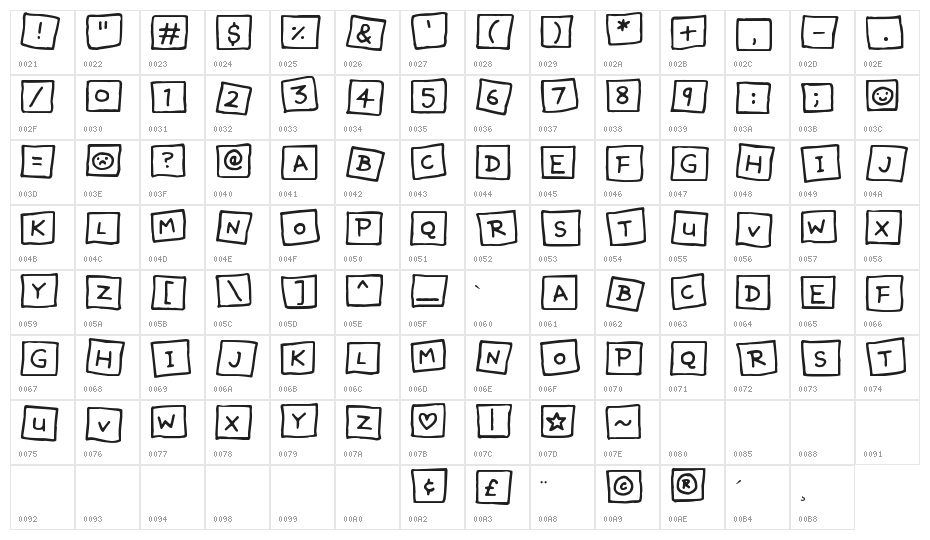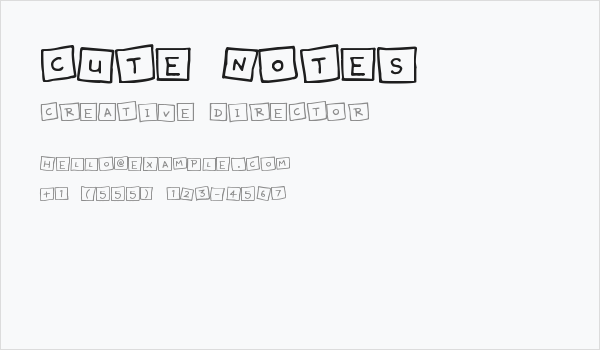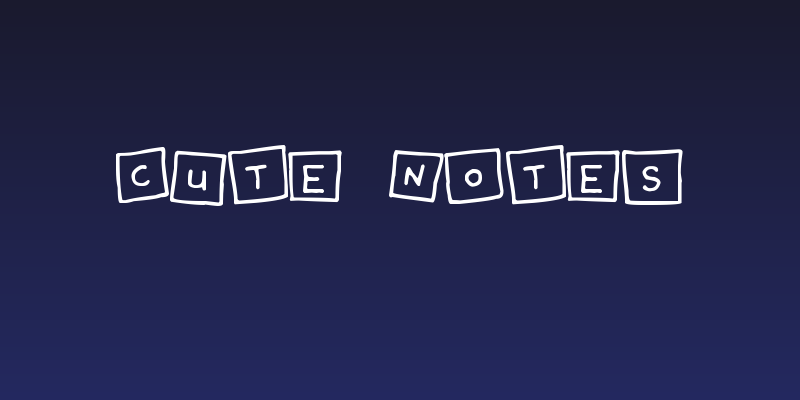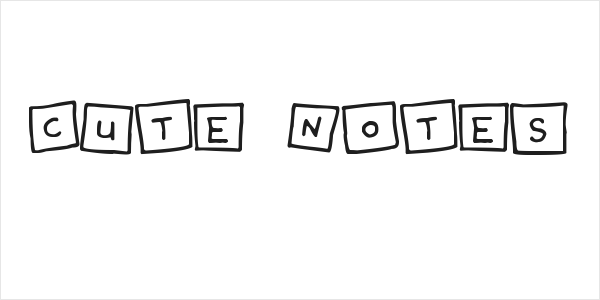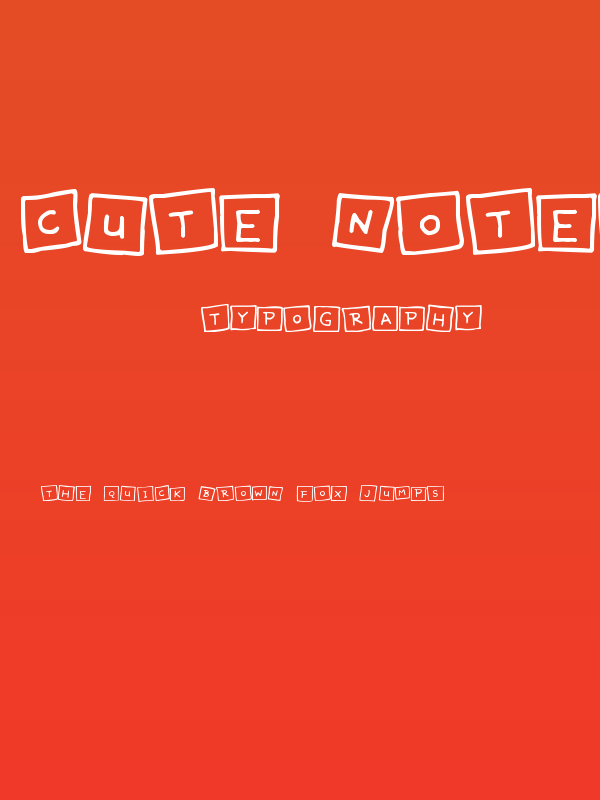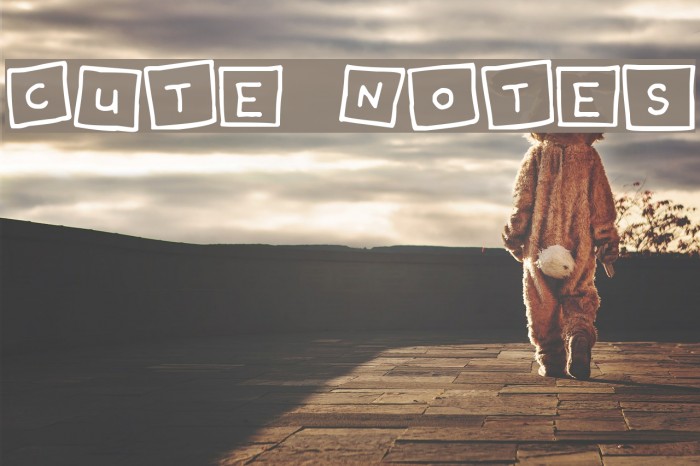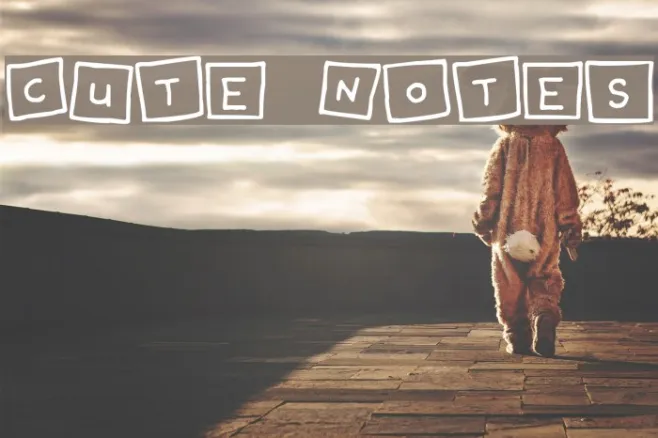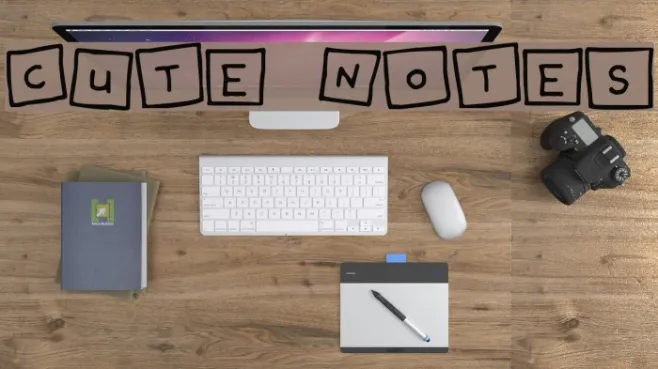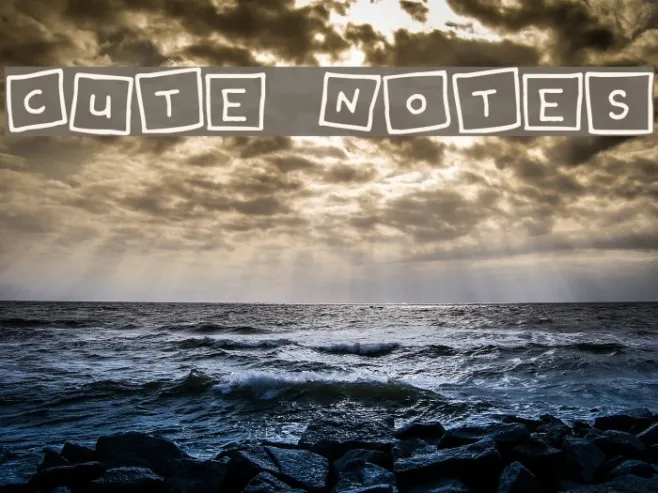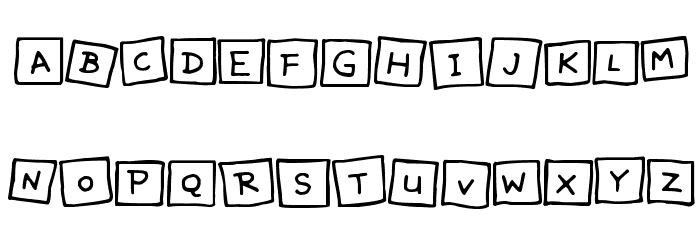
Cute Notes Font
Cute Notes Description
This playful and whimsical font features characters enclosed in irregular, hand-drawn boxes, giving it a casual and friendly appearance. Each letter and number is uniquely styled, with slight variations in size and shape, enhancing its informal and fun aesthetic. The lines are bold and slightly uneven, contributing to a hand-crafted feel. The font includes a full set of uppercase and lowercase letters, numbers, and a variety of special characters, all maintaining the same quirky boxed style. Its distinctive look makes it ideal for projects that require a touch of personality and creativity.
| Overall Style | Playful, Hand-drawn |
| Proposed Projects | Ideal for children's books, playful branding, greeting cards, and creative projects. |